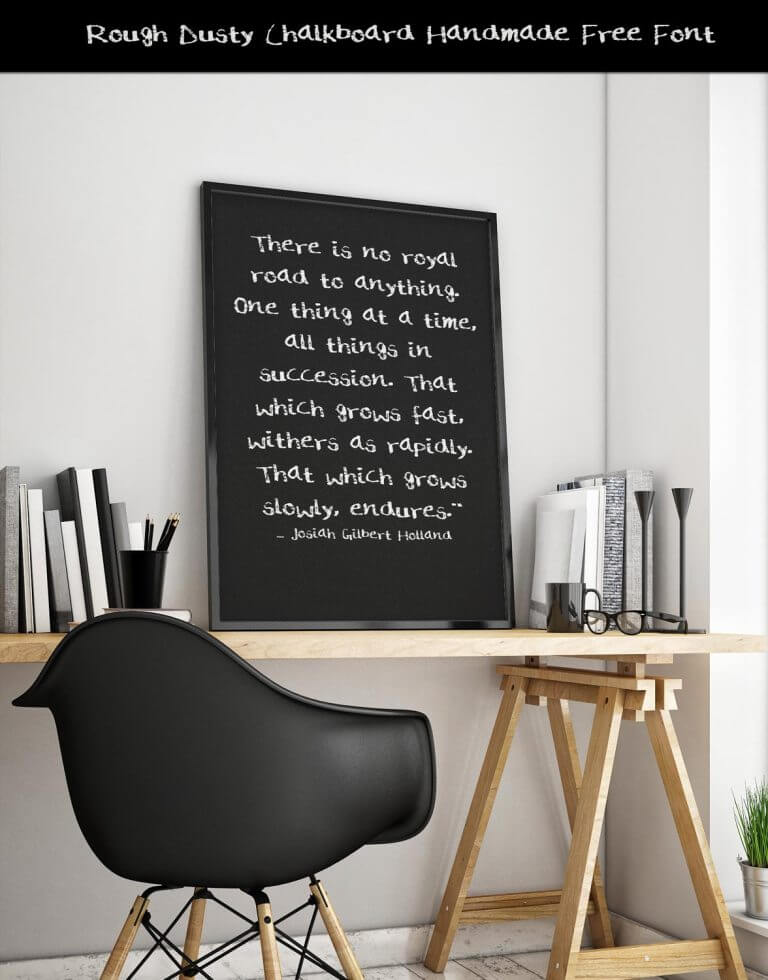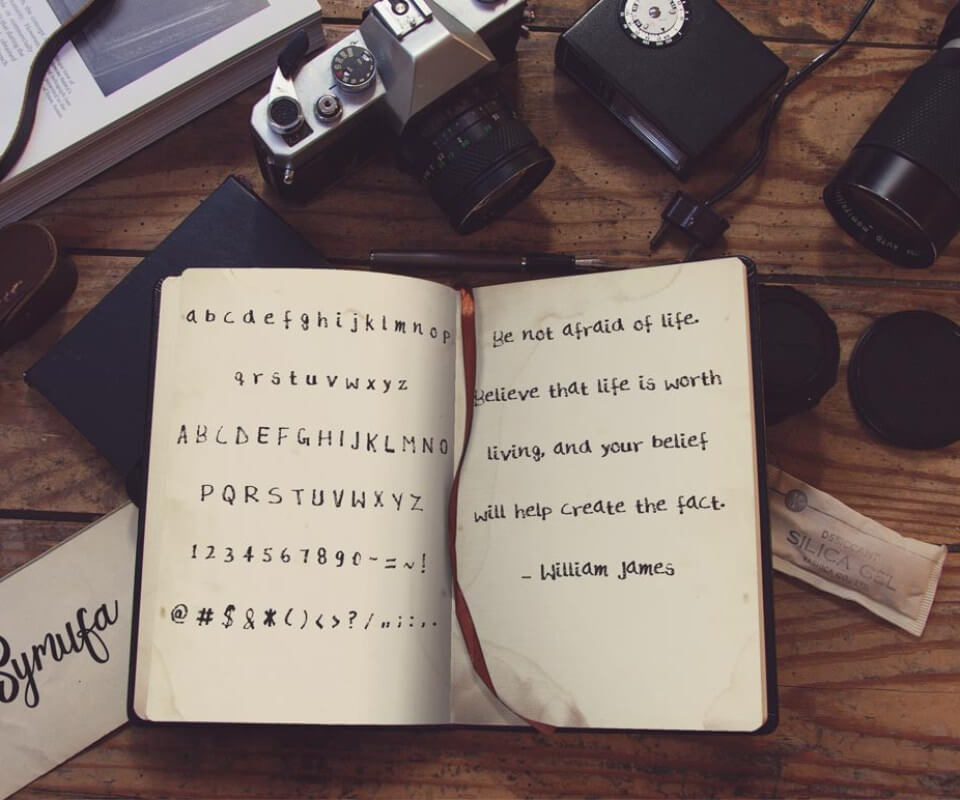
Rough & Dusty Handmade Free Font
Rough & Dusty is a handmade chalkboard free font. This handmade font is in upper and lower case and it includes numbers, special characters and some symbols. Pretty cool so don’t miss it.